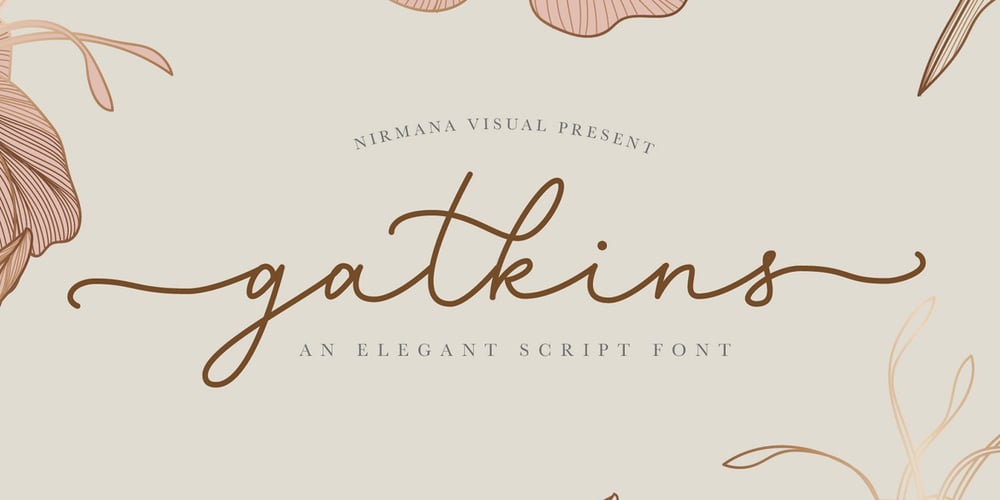
Gatkins Font Family was designed by Sigit Dwipa and published by Nirmana Visual. Gatkins contains 1 styles and family package options. Gatkins, its a Elegant Script font with swashes! create your own customized signature, quotes, or logo design. This font is support multi language. Also Support PUA.Thank you!